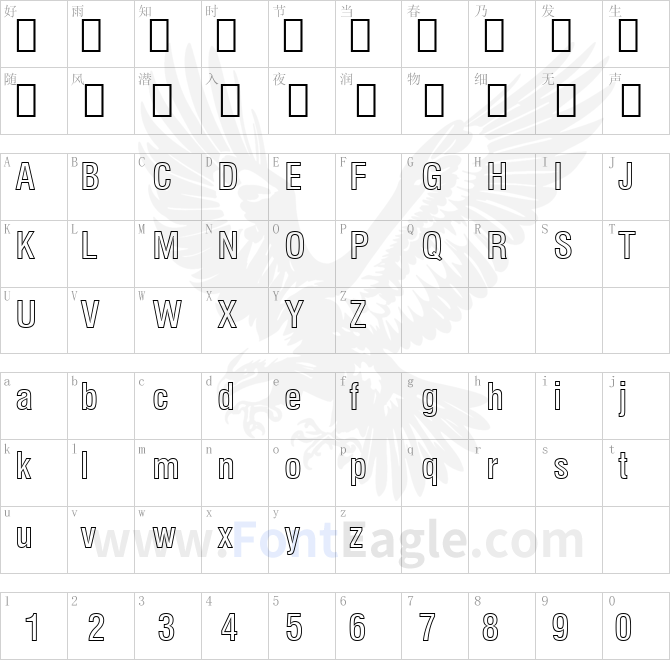
- Font name:Swis721 BdCnOul BT
- Font Subfamily:Bold Outline
- Font Subfamily ID:Swiss 721 Bold Condensed Outline
- Font Full Name:Swis721 BdCnOul BT Bold Outline
- Postscript:Swiss721BT-BoldCondensedOutline